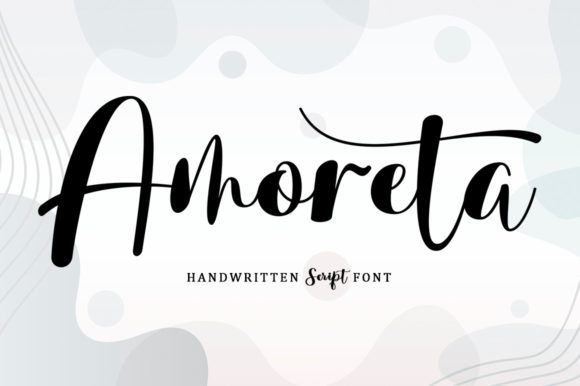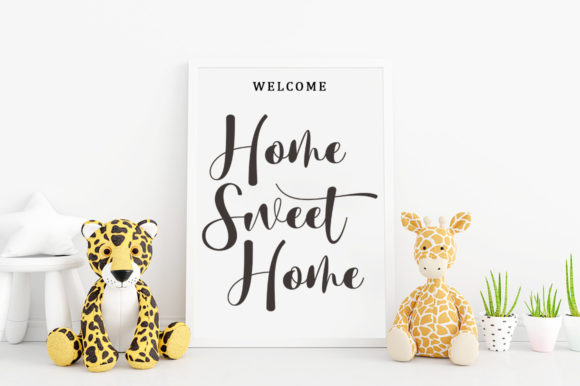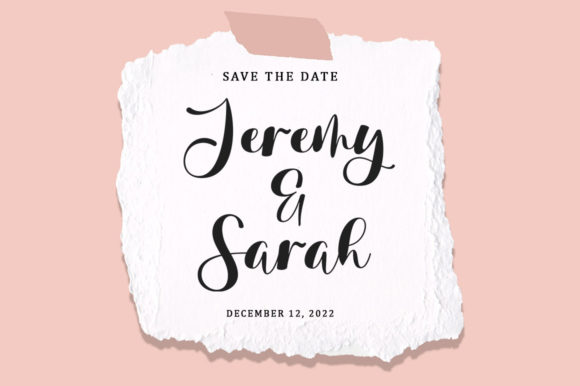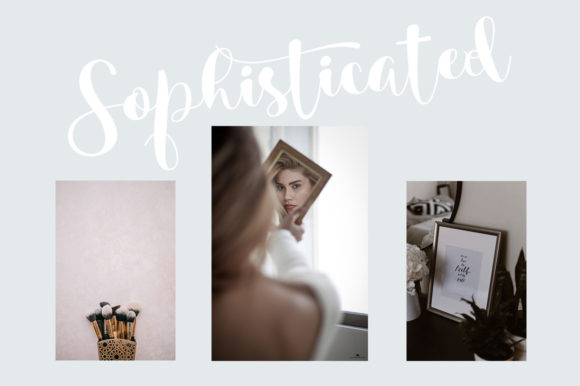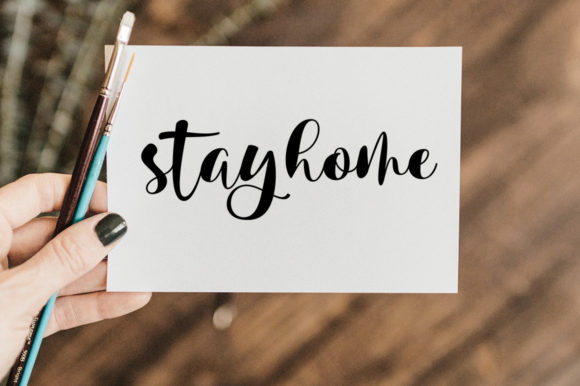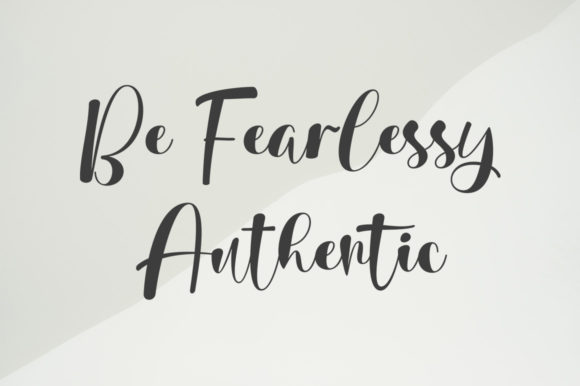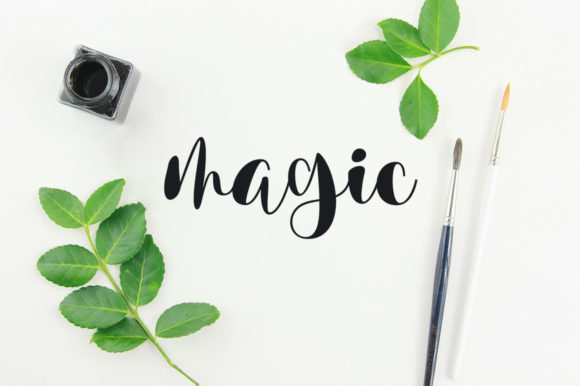
Amoreta Font
About Amoreta Font
Amoreta is a beautiful and timeless handwritten font. It is the best choice for creating attractive logos, branding and quotes. This font is PUA encoded which means you can access all the glyphs and sweeps easily!